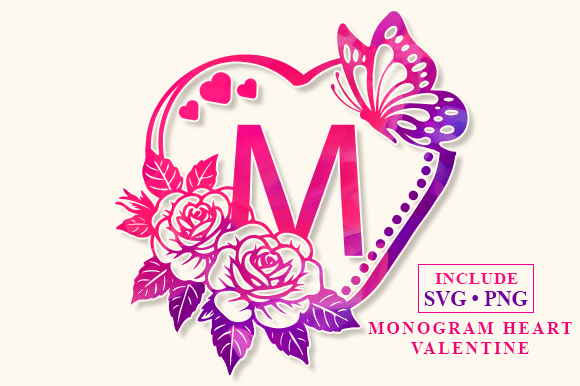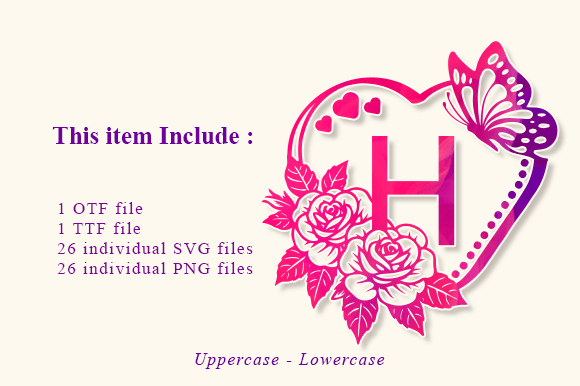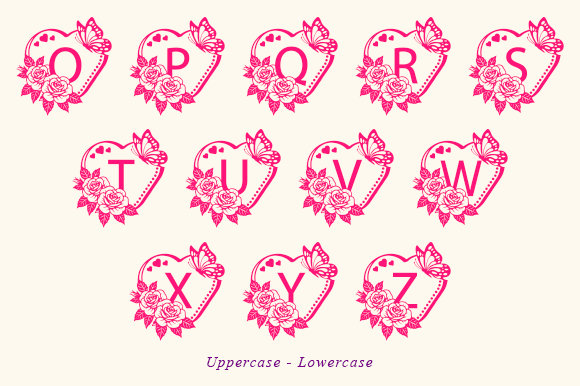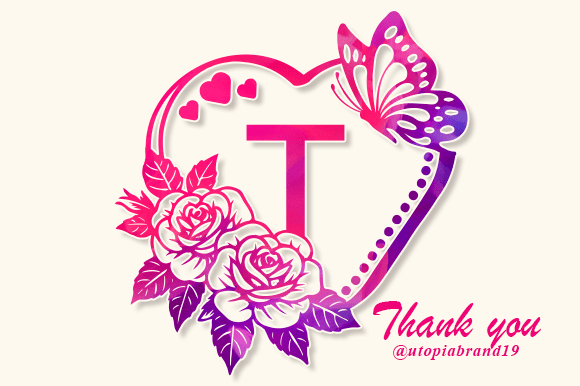
Monogram Heart Valentine Font
About the Monogram Heart Valentine Font
Explore the possibilities with Monogram Heart Valentine Font, a font that offers both beauty and functionality. Monogram Heart Valentine is an elegant decorative font, featuring lovely ornaments. Fall in love with its authentic feel and use it to create gorgeous wedding invitations, beautiful stationary art, eye-catching social media posts, and cute greeting cards.
Its elegant, decorative style makes it ideal for projects requiring a touch of vintage charm, such as wedding stationery, branding for boutique businesses, or short-form content like social media graphics and packaging design. However, its ornate details are less suitable for body text or UI elements where readability is paramount; the decorative flourishes could hinder legibility in extended passages.
Consider pairing Monogram Heart Valentine with a clean sans-serif like Montserrat for a balanced contrast, or a classic serif font like Garamond for a more traditional feel. A simple script font could also complement its decorative nature, adding a layer of handwritten authenticity.
The font projects a romantic, sophisticated personality, best suited for brands that emphasize luxury, craftsmanship, or timeless appeal. Avoid using it for projects requiring a modern, minimalist aesthetic.
Monogram Heart Valentine Font Usage Examples
Monogram Heart Valentine Font Example